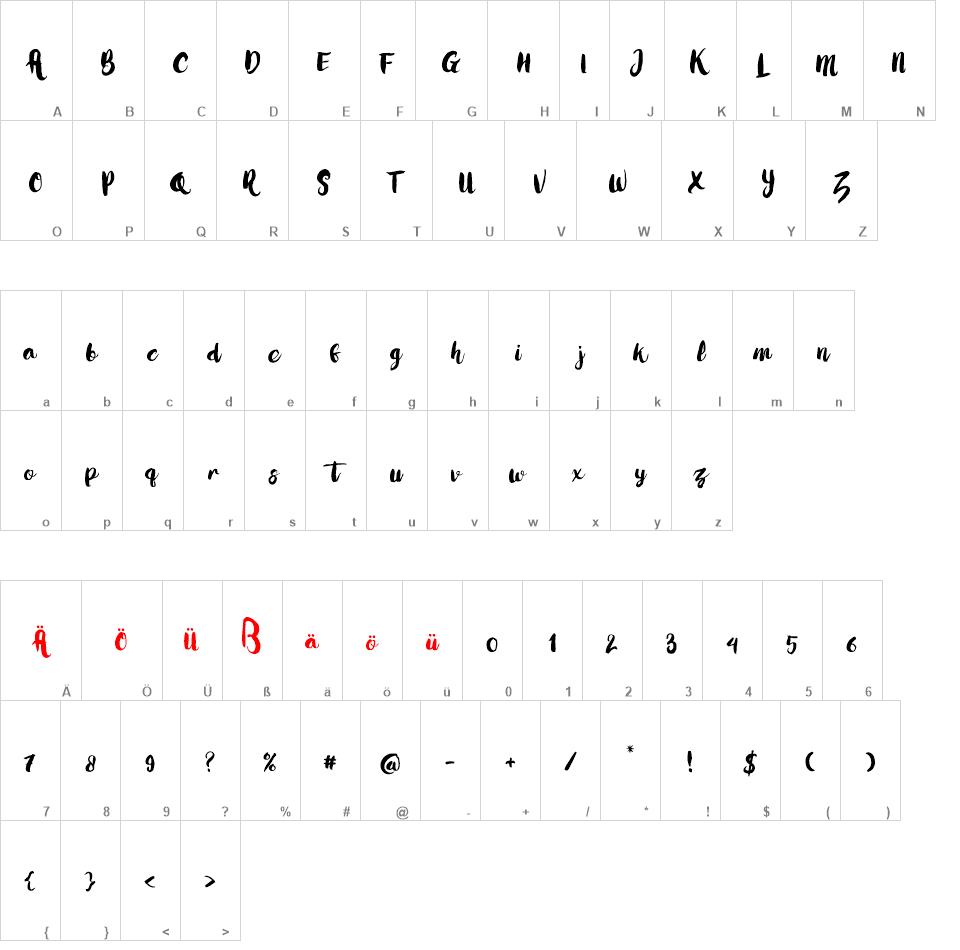
Love Moment
Love Moment font
Love Moment
Love Moment is a smooth hand calligraphy, modern calligraphy wavy, which was created to meet the needs of your next design project. Love Moment, Can used for various purposes. such as the title, logo, correspondence, wedding invitations, letterhead, signage, labels, newsletters, posters, badges, t-shirt, etc.